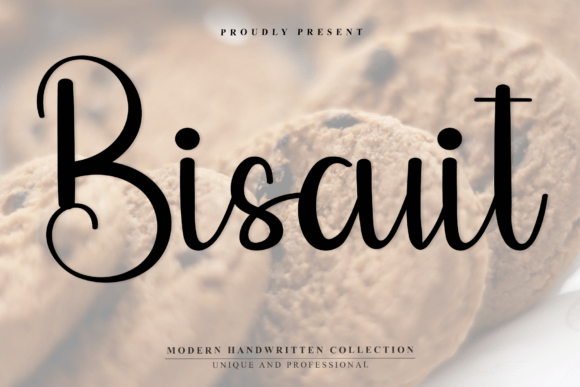
The Biscuit Font: A Warm and Inviting Addition to Your Design Toolkit
Have you ever been working on a design project, and suddenly, you’re stuck on finding the perfect font? I recall a recent experience where I was tasked with creating a whimsical invitation for a friend’s baby shower. The theme was playful, modern, and elegant, but my font choices just weren’t capturing the right vibe. That’s when I stumbled upon the Biscuit font, and it instantly became the perfect fit. In this article, we’ll dive into the world of Biscuit, a casual handwritten font that radiates warmth and personality.
A Personal Review: What I Love About Biscuit
So, what makes Biscuit so special? Here are a few things that I absolutely love about this font:
• ✨ Smooth strokes and natural curves that give it an authentic handwriting feel
• ✅ Easy-flowing letterforms that make it a joy to read
• 💕 A modern, approachable style that’s perfect for a wide range of design projects
• 🎨 Versatile character that pairs well with various design elements and colors
While Biscuit is an amazing font, there are a few minor quirks to be aware of:
• 🤔 Some users might find the font a bit too casual for very formal projects
• ⚠️ Limited availability of certain OpenType features, such as ligatures or stylistic alternates
One of the best things about Biscuit is its support for OpenType features and glyphs. These features allow you to customize your text and add more personality to your designs. Some common OpenType features include:
Feature Description
Ligatures Replace standard character combinations with stylized ligatures
Stylistic Alternates Swap standard characters with alternate glyphs for a more personalized look
Swashes Add decorative swashes to your text for a more elegant feel
The Story Behind Biscuit
Biscuit was designed by a talented typographer who wanted to create a font that captured the warmth and personality of authentic handwriting. Inspired by the imperfect, yet charming qualities of handwritten text, Biscuit was born. With its smooth strokes, natural curves, and easy-flowing letterforms, it’s no wonder this font has become a favorite among designers and crafters.
Q: Is Biscuit suitable for formal projects?
A: While Biscuit is a beautiful font, it may be too casual for very formal projects. However, it’s perfect for most design applications, from social media posts to invitations.
Q: Does Biscuit support OpenType features?
A: Yes, Biscuit supports some OpenType features, such as glyphs and stylistic alternates. However, the availability of these features may vary depending on the design platform.